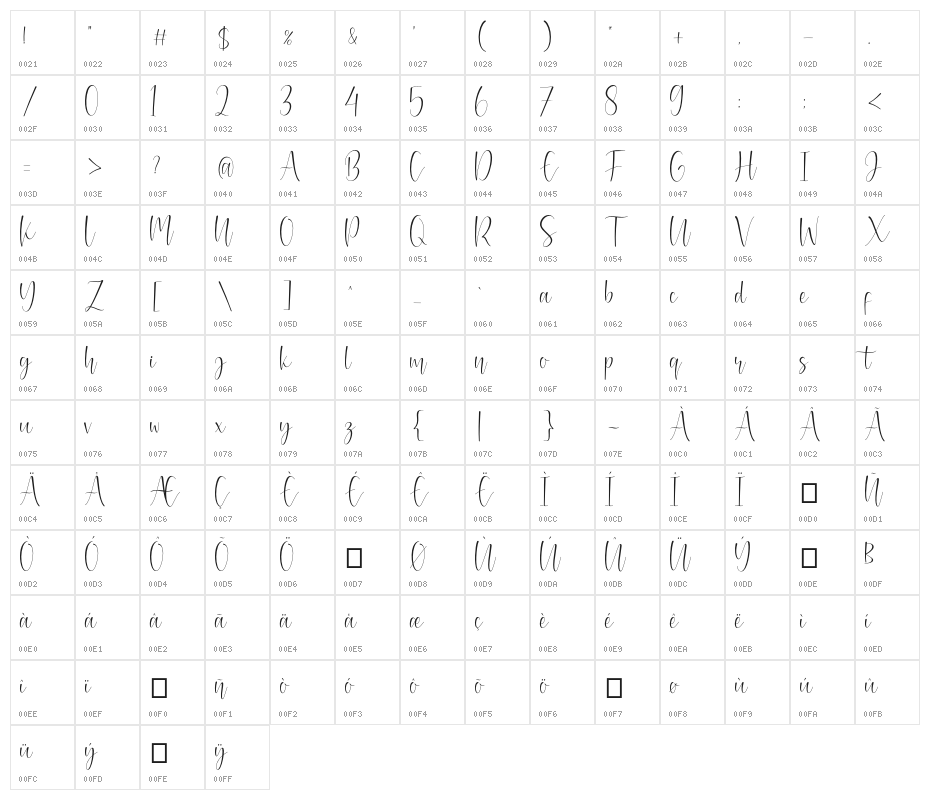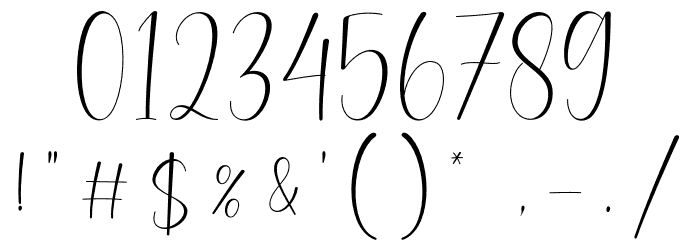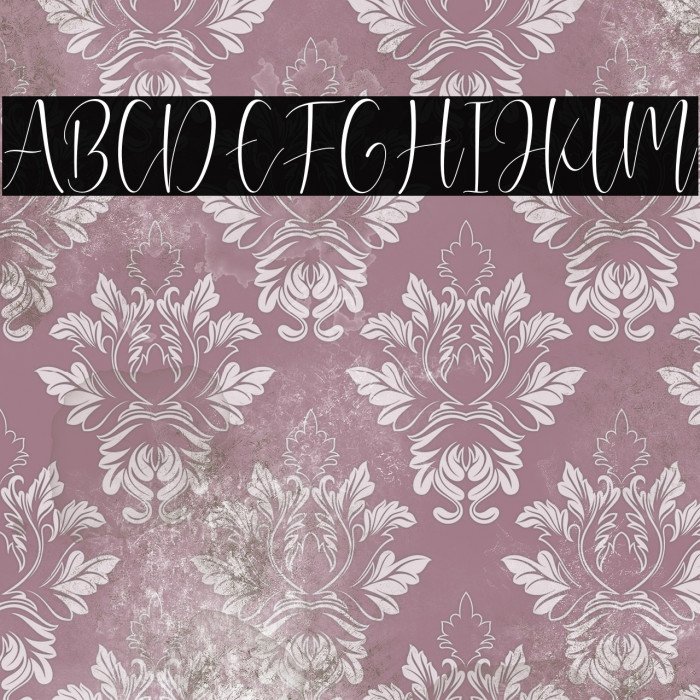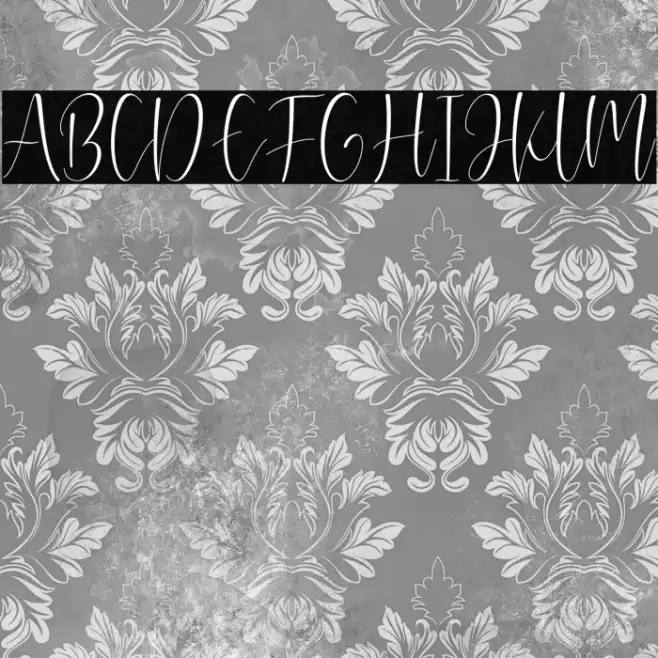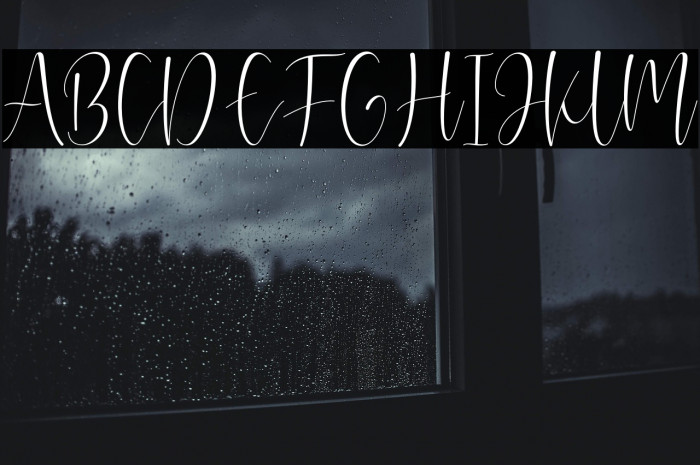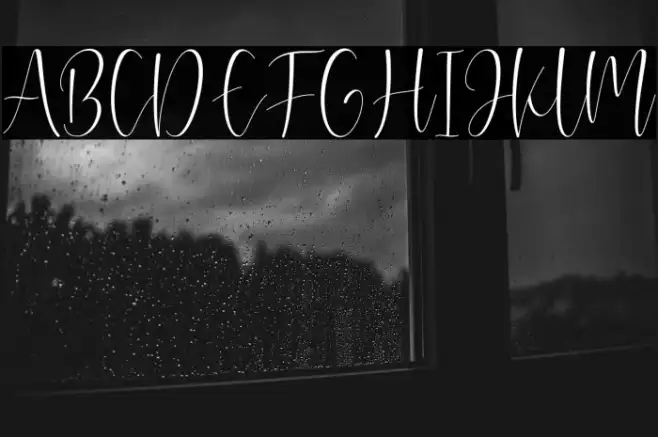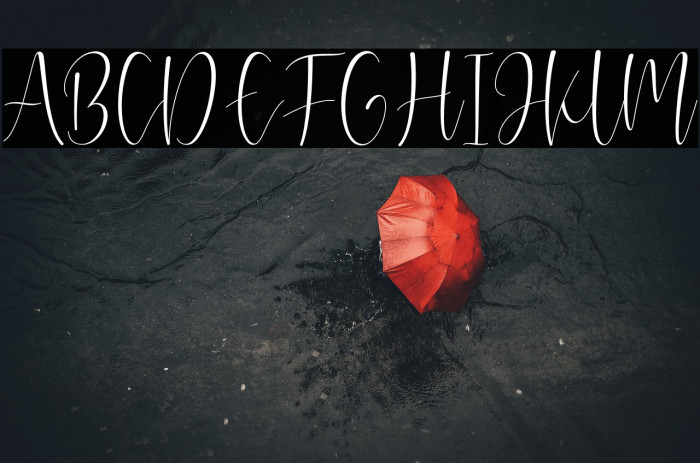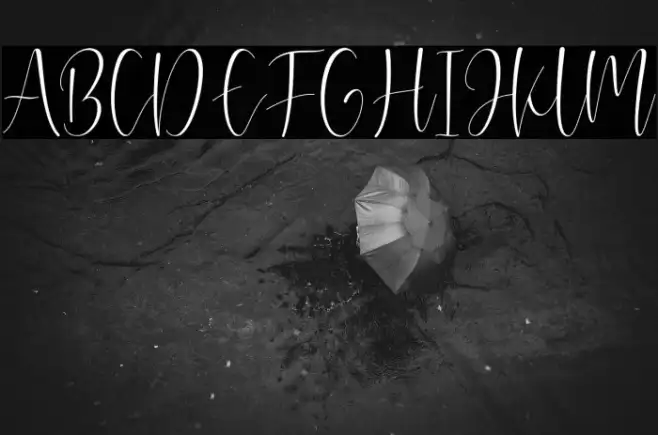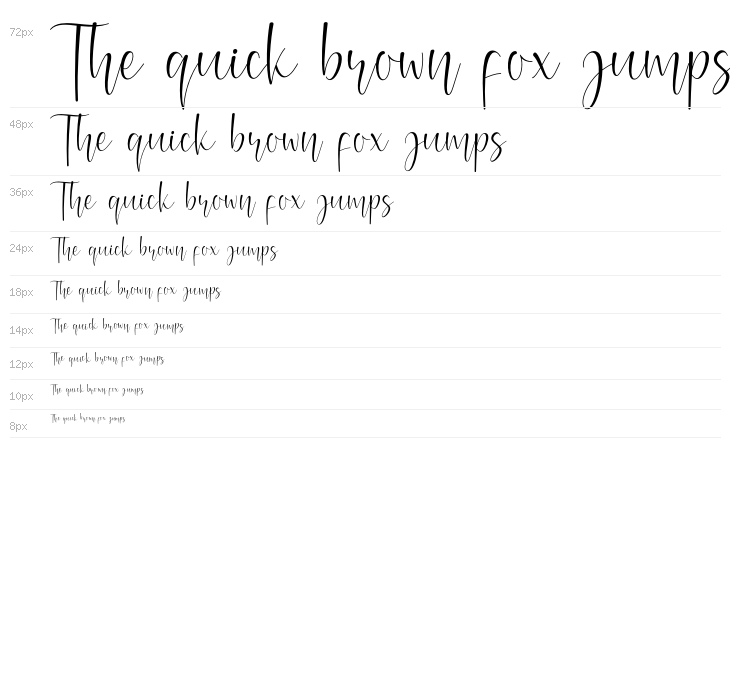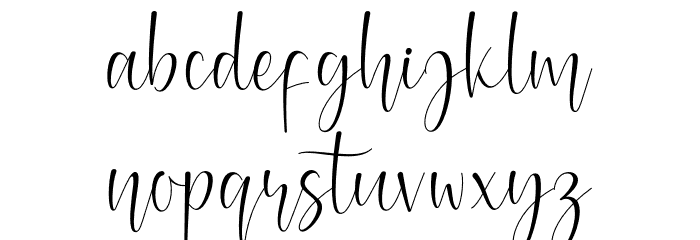
Mianty Font
Mianty Description
This elegant handwritten font features a fluid and graceful style, characterized by its delicate curves and flowing lines. The uppercase letters are tall and slender, with a slight slant that adds a touch of sophistication. The lowercase letters maintain a consistent style, with smooth connections between strokes, creating a cohesive and harmonious appearance. The numerals are distinct and easy to read, while the special characters complement the overall aesthetic with their refined shapes. This font exudes a sense of elegance and charm, making it suitable for a variety of creative projects.